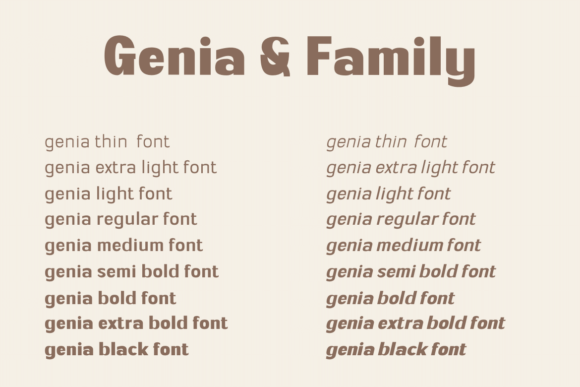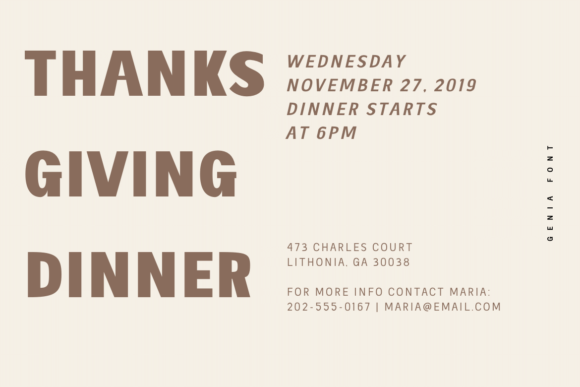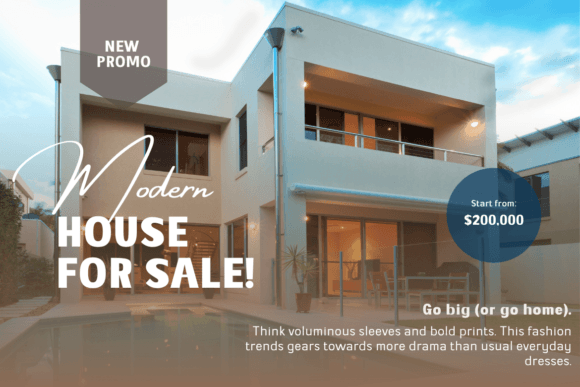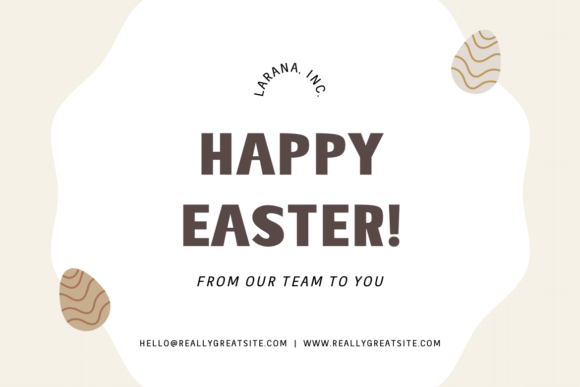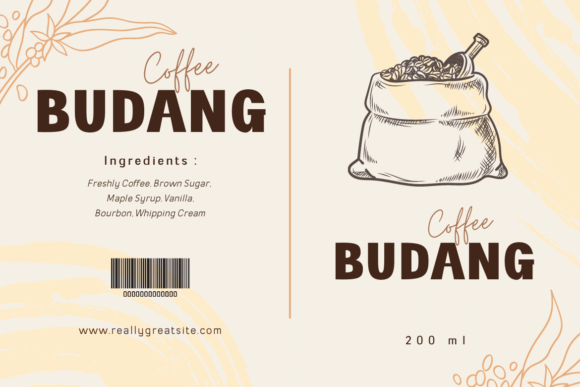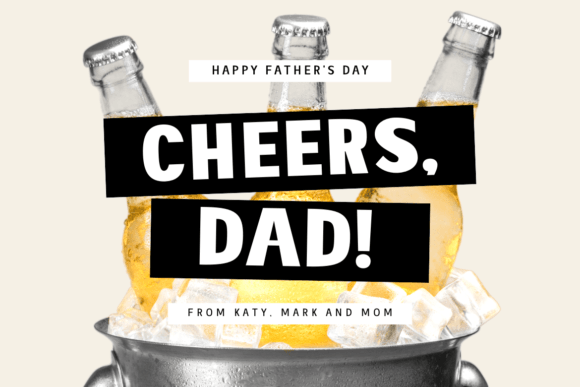
Introducing Genia Font: The Modern and Bold Sans Serif Game-Changer
In the world of typography, fonts play a crucial role in conveying messages, expressing emotions, and creating visual identities. For designers, crafters, and creative enthusiasts, finding the perfect font can be a daunting task. However, if you’re looking for a modern and bold sans serif font that can elevate your creations, look no further than Genia Font. In this article, we’ll dive into the features, benefits, and uses of Genia Font, and explore why it’s an incredible asset to your font library.
What is Genia Font?
Genia is a contemporary sans serif font designed to make a statement. Its clean lines, geometric shapes, and bold strokes create a striking visual effect that grabs attention. With its modern aesthetic, Genia Font is perfect for a wide range of applications, from digital media to print materials. Whether you’re designing a logo, brochure, website, or social media post, Genia Font is an excellent choice.
Key Features of Genia Font
- Modern and Bold Design: Genia Font boasts a sleek and contemporary design that’s sure to make your creations stand out.
- Sans Serif Style: The font’s sans serif style provides a clean and minimalist look that’s perfect for digital media and modern designs.
- Geometric Shapes: Genia Font’s geometric shapes add a touch of sophistication and elegance to your designs.
- High Versatility: Genia Font is suitable for a wide range of applications, from headings and titles to body text and captions.
Benefits of Using Genia Font
So, why should you choose Genia Font for your next project? Here are some benefits of using this incredible font:
- Elevate Your Designs: Genia Font’s modern and bold design can instantly elevate your creations and make them more visually appealing.
- Improve Readability: The font’s clean lines and geometric shapes ensure excellent readability, even at small sizes.
- Increase Brand Recognition: With Genia Font, you can create a consistent visual identity for your brand and increase recognition.
- Easy to Pair: Genia Font pairs well with a variety of other fonts, making it easy to create harmonious and balanced designs.
Use Cases for Genia Font
Genia Font is an incredibly versatile font that can be used in a wide range of applications, including:
- Logo Design: Create a bold and memorable logo with Genia Font.
- Digital Media: Use Genia Font for website headers, social media posts, and digital advertisements.
- Print Materials: Genia Font is perfect for brochures, flyers, posters, and business cards.
- Headings and Titles: Use Genia Font to create eye-catching headings and titles for articles, blog posts, and presentations.
In conclusion, Genia Font is a modern and bold sans serif font that’s perfect for designers, crafters, and creative enthusiasts. Its clean lines, geometric shapes, and high versatility make it an incredible asset to your font library. Whether you’re designing a logo, website, or print material, Genia Font is sure to elevate your creations and make them more visually appealing. So, what are you waiting for? Get creative with Genia Font today and take your designs to the next level!